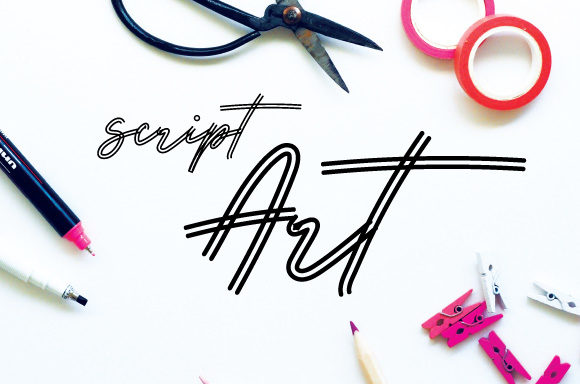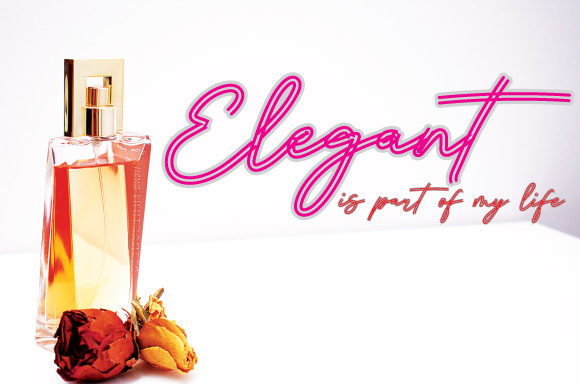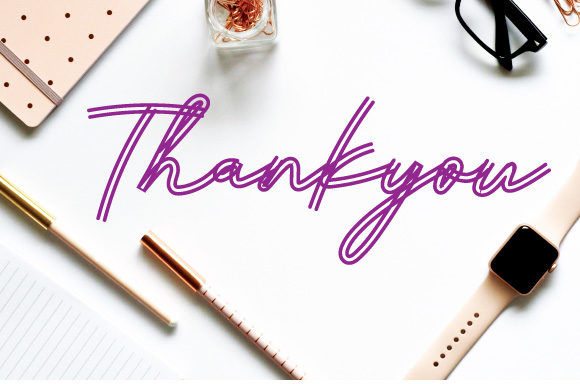
Script Art Font
About Script Art Font
Script Art is a stylish modern font that is suitable for a variety of formal and informal designs. No matter the topic, this font will be an incredibly asset to your fonts’ library, as it has the potential to elevate any creation.